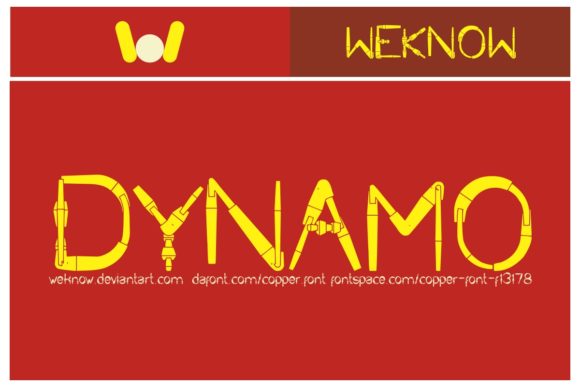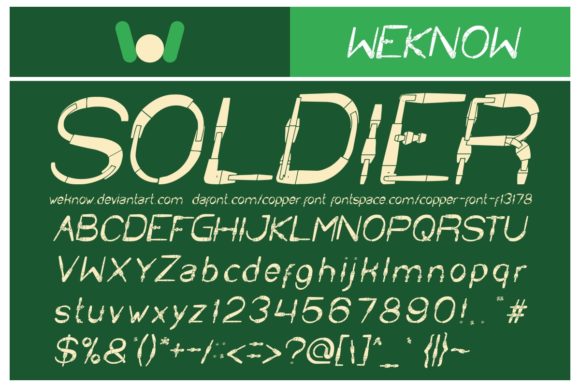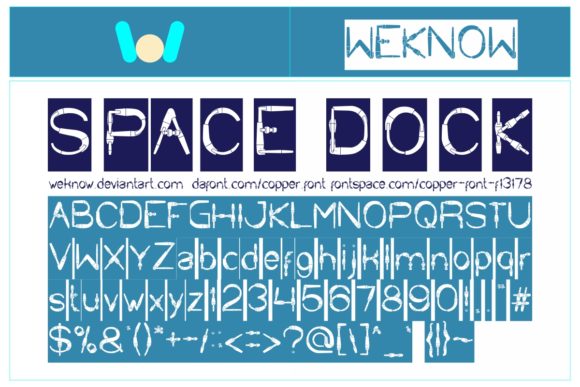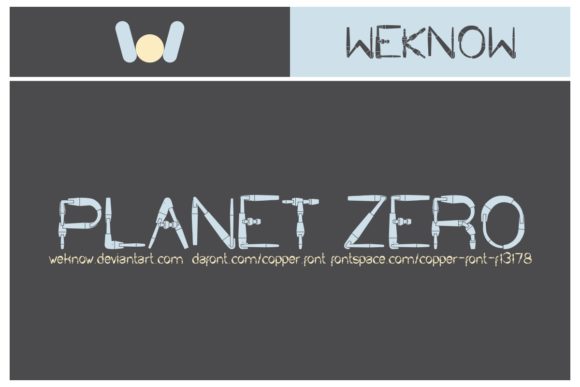
Copper Font: Elevate Your Crafting Designs with a Futuristic Twist
Copper is a fancy display font that has been making waves in the design community with its sleek, futuristic look. If you’re a crafter or designer looking to take your designs to the next level, Copper Font is an excellent choice. In this article, we’ll dive into the world of Copper Font, exploring its features, benefits, and uses, as well as provide tips on how to incorporate it into your crafting designs.
The Futuristic Look of Copper Font
Copper Font boasts a unique, high-tech aesthetic that’s perfect for designs that require a touch of innovation and sophistication. Its slender lines, geometric shapes, and metallic sheen evoke a sense of futurism, making it an ideal choice for projects that require a cutting-edge look. Whether you’re designing a logo, a brochure, or a social media post, Copper Font is sure to turn heads.
Key Features of Copper Font
- Unique lettering style: Copper Font features a distinctive lettering style that’s both elegant and edgy.
- Geometric shapes: The font’s geometric shapes give it a futuristic, high-tech look.
- Metallic sheen: Copper Font’s metallic sheen adds a touch of luxury and sophistication to any design.
- Highly legible: Despite its futuristic look, Copper Font is highly legible, making it perfect for use in a variety of design applications.
Benefits of Using Copper Font
So, why should you choose Copper Font for your crafting designs? Here are just a few benefits of using this versatile font:
- Adds a touch of sophistication: Copper Font’s luxurious look and feel can elevate even the most mundane design into a work of art.
- Perfect for futuristic designs: If you’re looking to create a design that screams “futuristic,” Copper Font is an excellent choice.
- Versatile: Copper Font can be used in a variety of design applications, from logos and brochures to social media posts and website headers.
- Easily customizable: Copper Font can be easily customized to fit your design needs, making it a great choice for designers who like to experiment.
Using Copper Font in Your Crafting Designs
Now that we’ve covered the features and benefits of Copper Font, let’s talk about how to incorporate it into your crafting designs. Here are a few tips to get you started:
- Pair it with a bold color scheme: Copper Font looks great when paired with bold, bright colors. Try pairing it with a vibrant color scheme to create a design that’s sure to pop.
- Use it for headings and titles: Copper Font is perfect for use in headings and titles, where its futuristic look can really shine.
- Experiment with different textures: Copper Font can be used in a variety of textures, from smooth and metallic to rough and distressed. Experiment with different textures to find the look that works best for your design.
Copper Font in the World of Crafting
Copper Font is more than just a font – it’s a design tool that can help crafters and designers take their work to the next level. Whether you’re a seasoned pro or just starting out, Copper Font is an excellent choice for anyone looking to add a touch of futurism to their designs.
In the world of crafting, Copper Font can be used in a variety of applications, from paper crafting and scrapbooking to card making and journaling. Its unique look and feel make it perfect for creating eye-catching designs that are sure to stand out.
In conclusion, Copper Font is a versatile and stylish font that’s perfect for designers and crafters looking to add a touch of futurism to their work. With its unique lettering style, geometric shapes, and metallic sheen, Copper Font is sure to elevate your crafting designs to the next level. Whether you’re a seasoned pro or just starting out, Copper Font is an excellent choice for anyone looking to create eye-catching designs that are sure to turn heads.